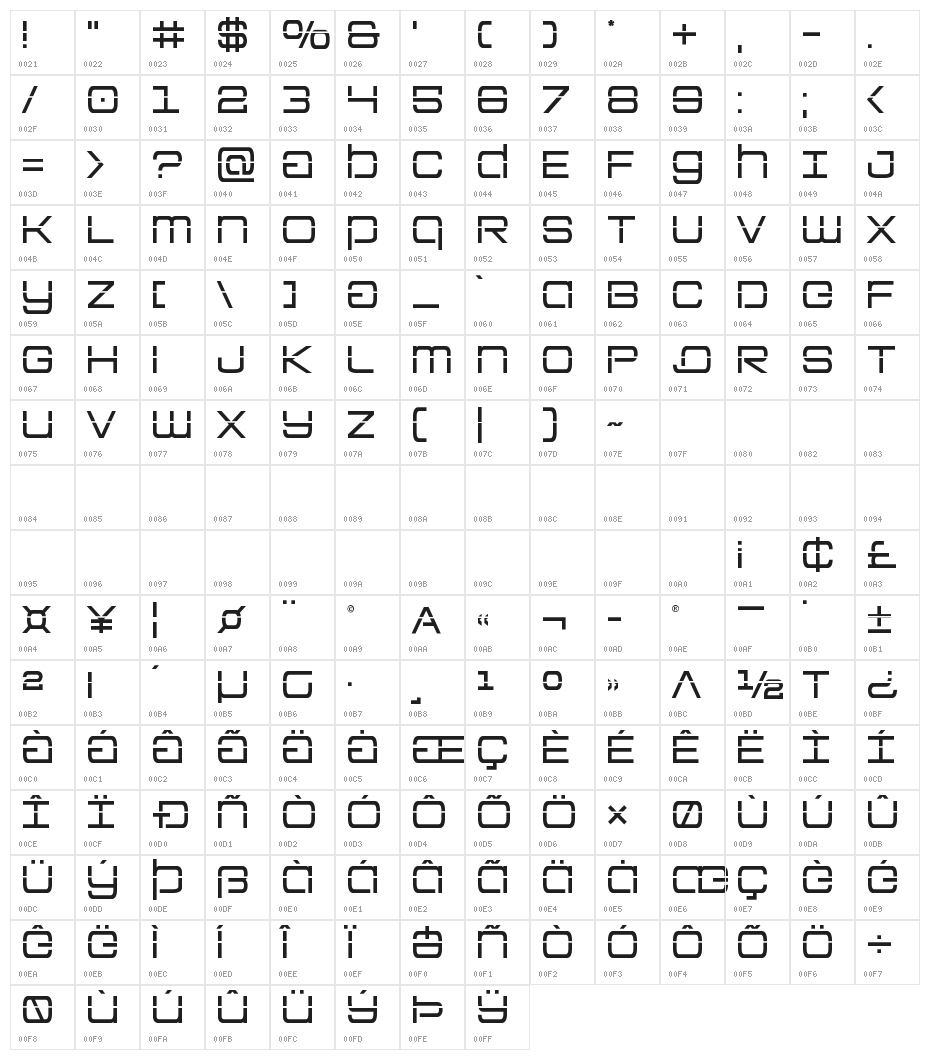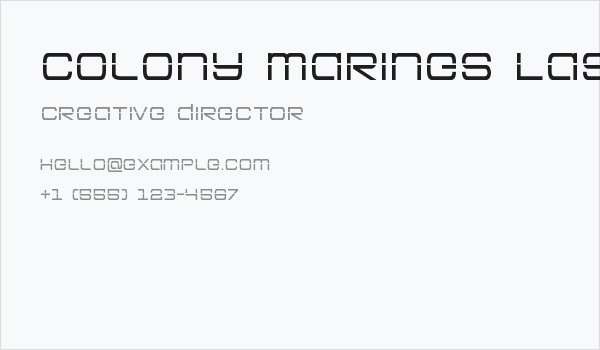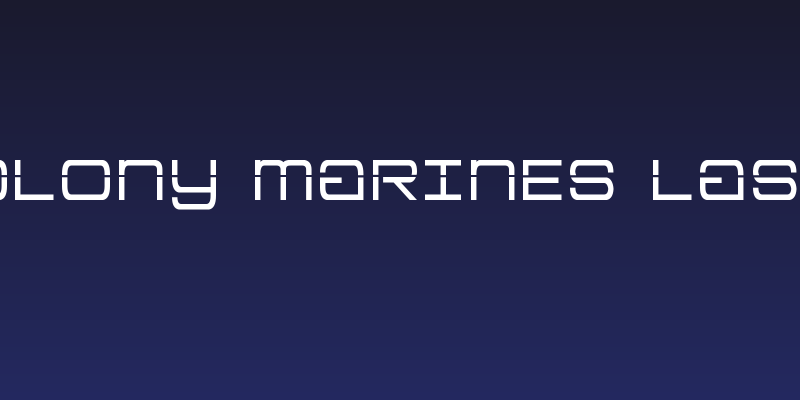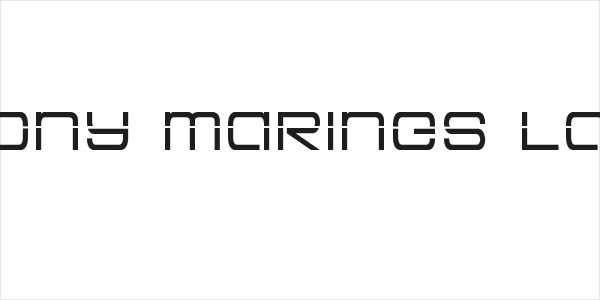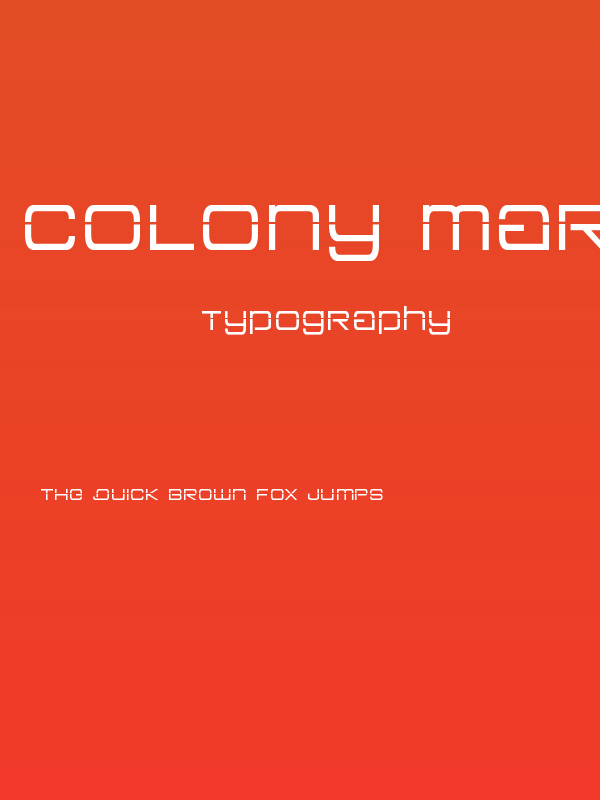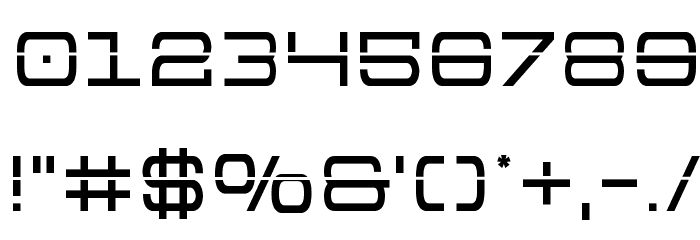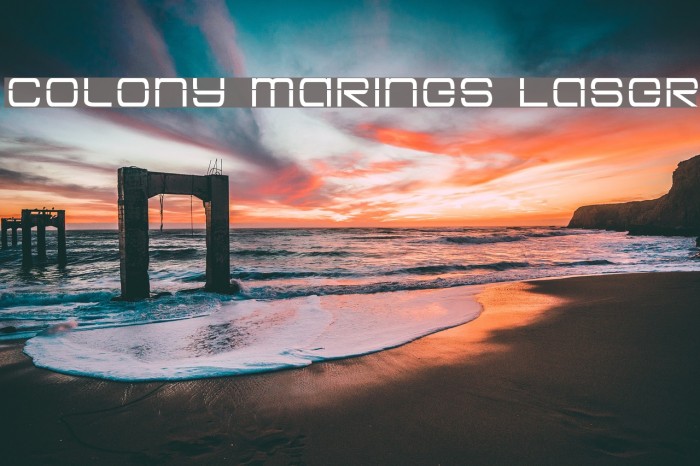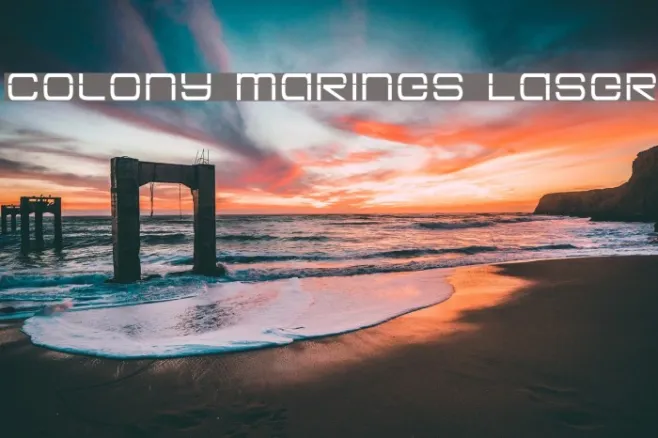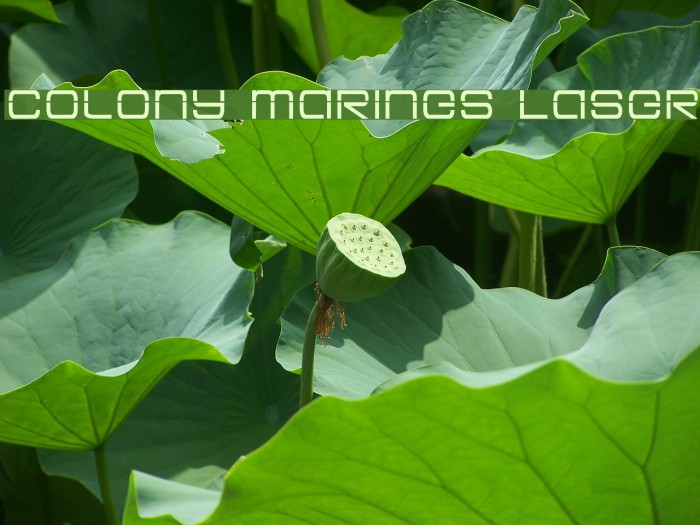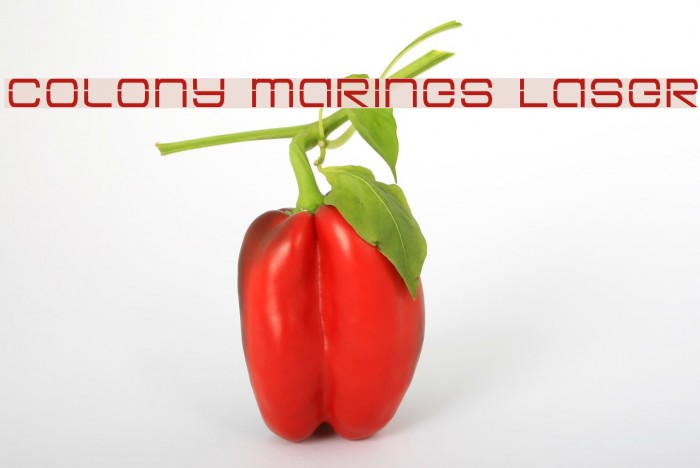
Colony Marines Laser Font
Colony Marines Laser Description
This futuristic font features a geometric and angular design, reminiscent of digital and sci-fi aesthetics. The characters are constructed with clean, straight lines and sharp angles, giving it a modern and technological feel. The uppercase and lowercase letters maintain a consistent style, with a uniform height and width that enhances readability. The numerals and special characters follow the same design principles, ensuring a cohesive look across all glyphs. The font's unique style makes it suitable for projects that require a contemporary and innovative appearance.
| Proposed Projects | Ideal for technology branding, sci-fi movie posters, video game interfaces, and digital art projects. |